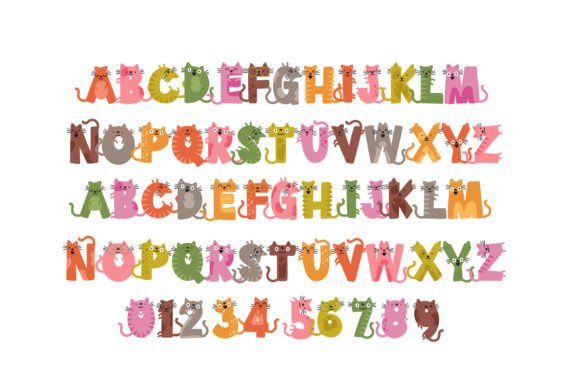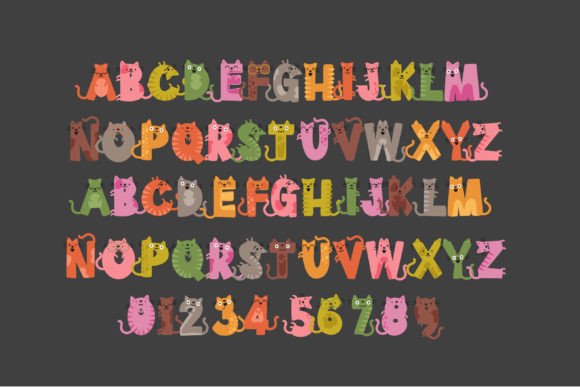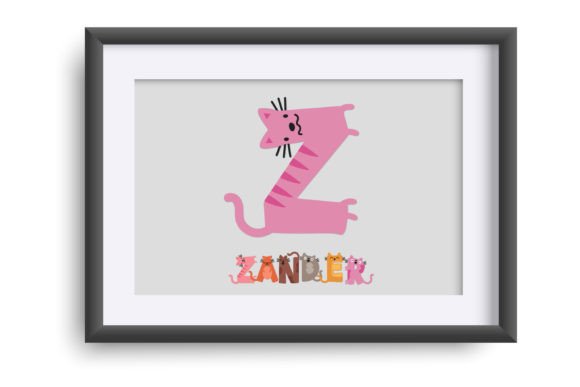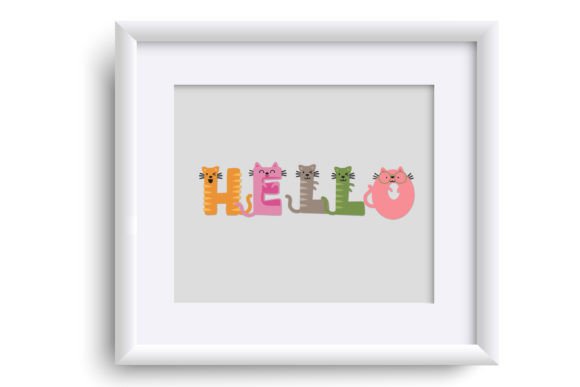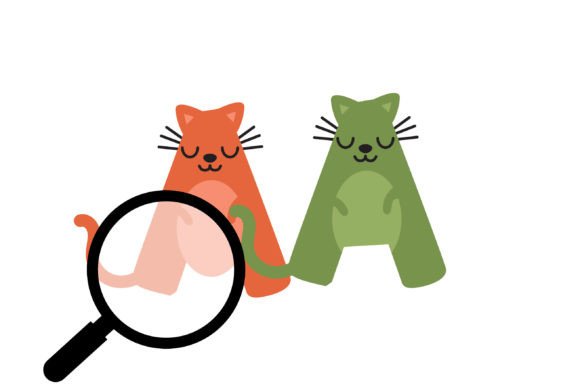
Introduction to Emoticat Font
This full-color font features sans serif lettering that looks like cats.
There is an alt case w/ additional colors you can access through your system or Silhouetteโs glyph map This font works best for titles, displays, posters and more.